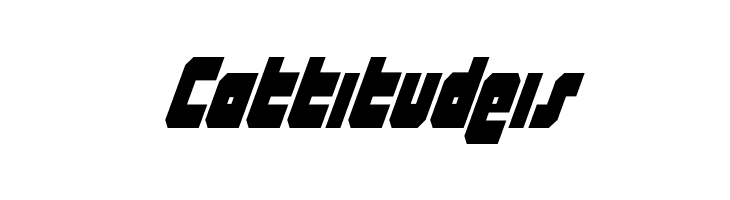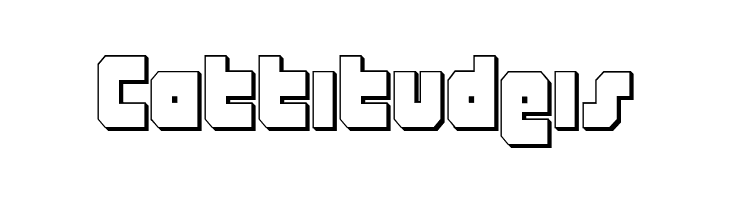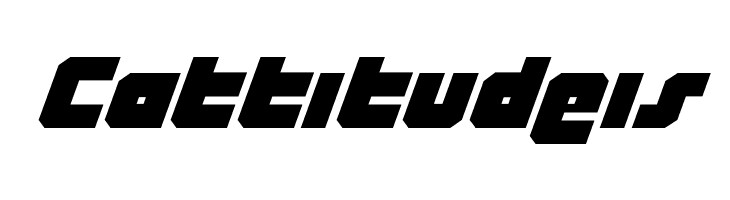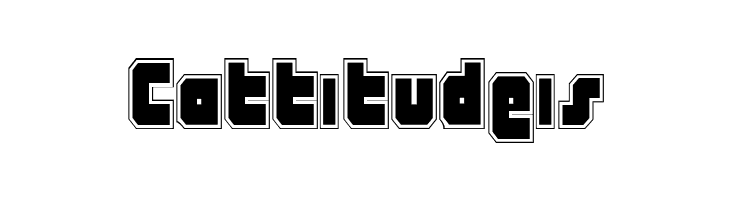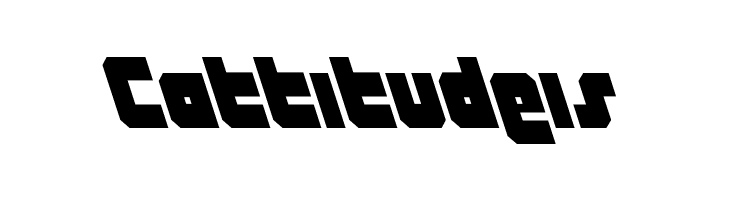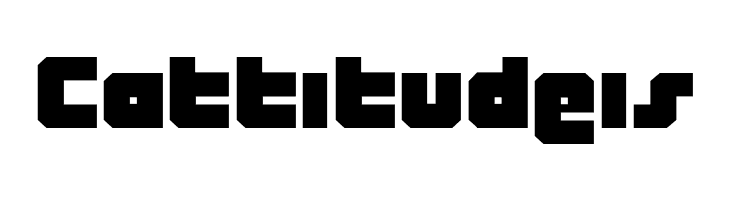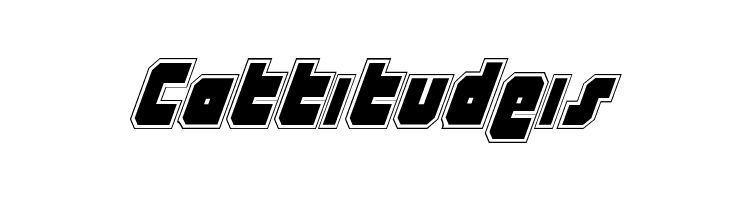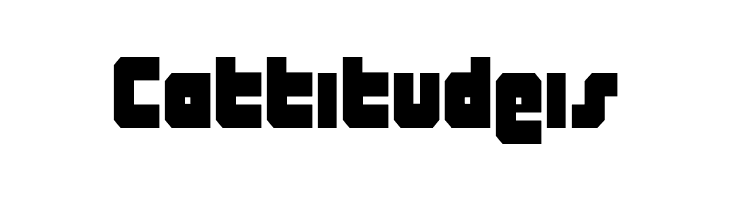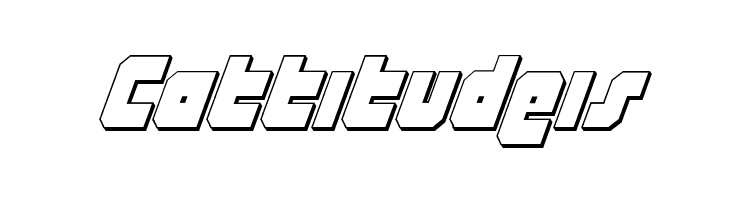
A futuristic, geometric font with bold, angular shapes and an octagonal motif.
A bold, geometric font with angular lines and a blocky appearance.
A bold, 3D geometric font with a modern, futuristic style.
A bold, 3D italic font with a futuristic and dynamic style.
A bold, geometric, and condensed font with a modern, impactful style.
A bold, italic, geometric font with a futuristic and dynamic style.
A bold, geometric font with expanded width and a modern, industrial style.
A bold, expanded italic font with a modern, geometric style.
A bold, angular, italicized font with a futuristic and dynamic style.
Bold, angular, and left-slanted with a strong geometric presence.
A bold, geometric font with outlined characters for a striking visual impact.
Bold, italicized font with a geometric, three-dimensional style.